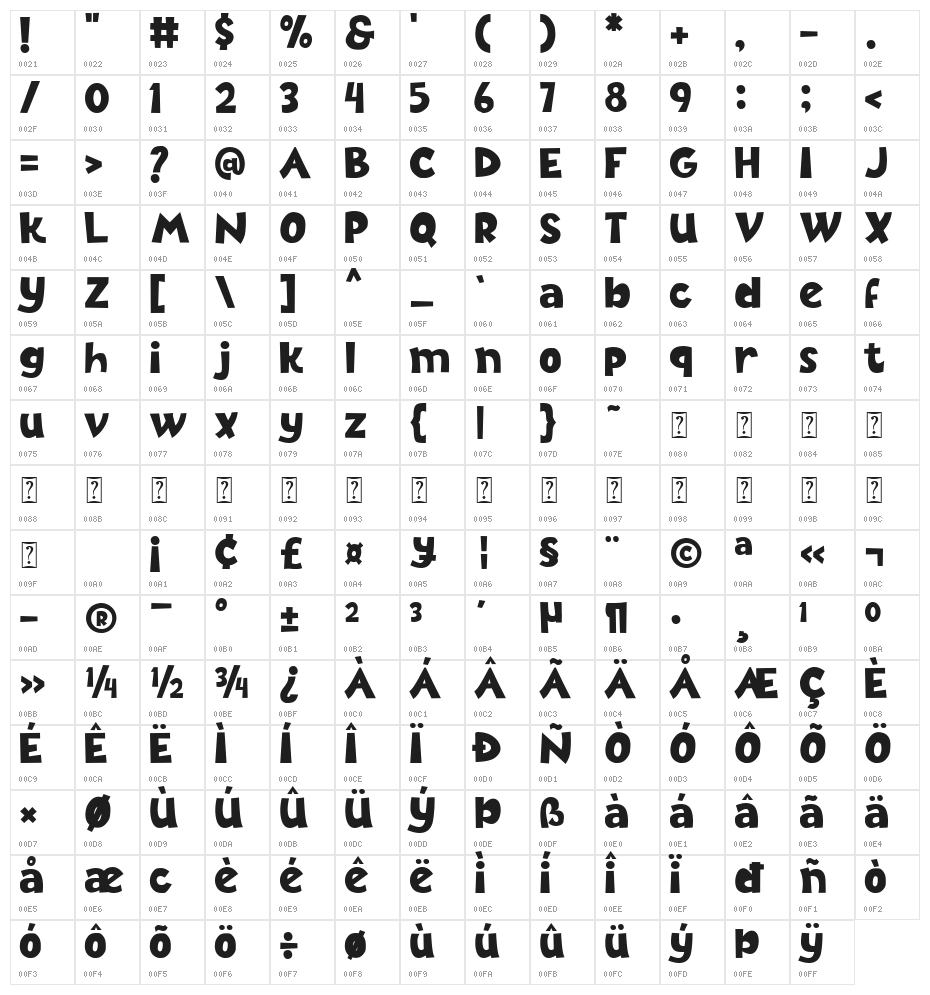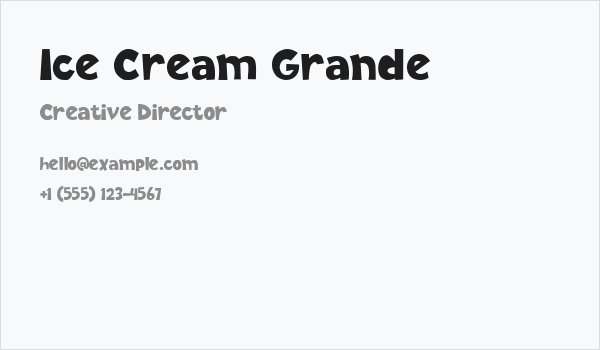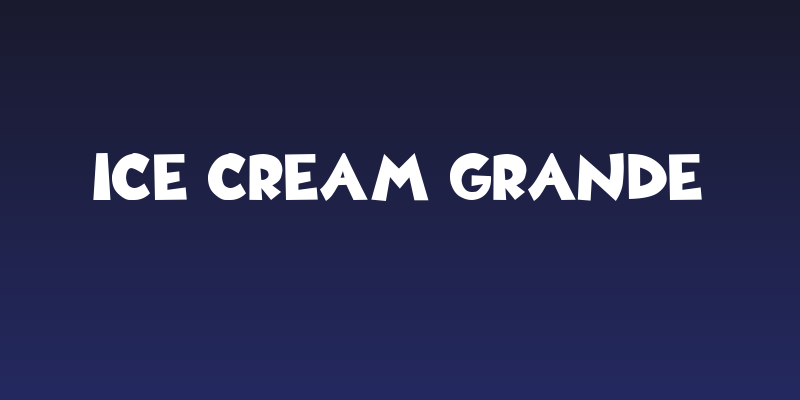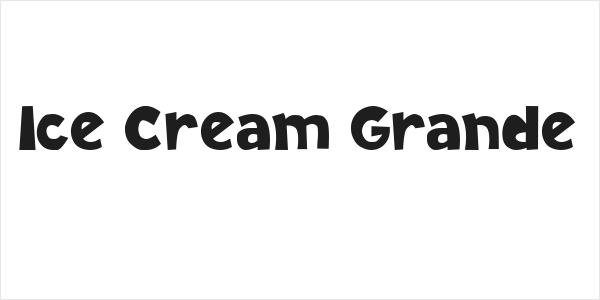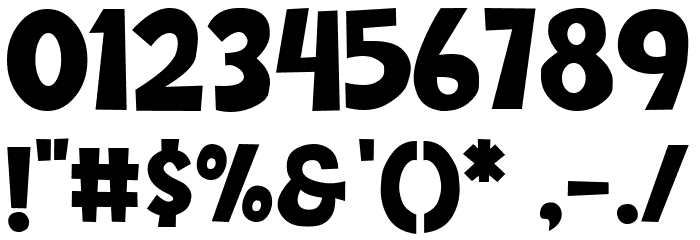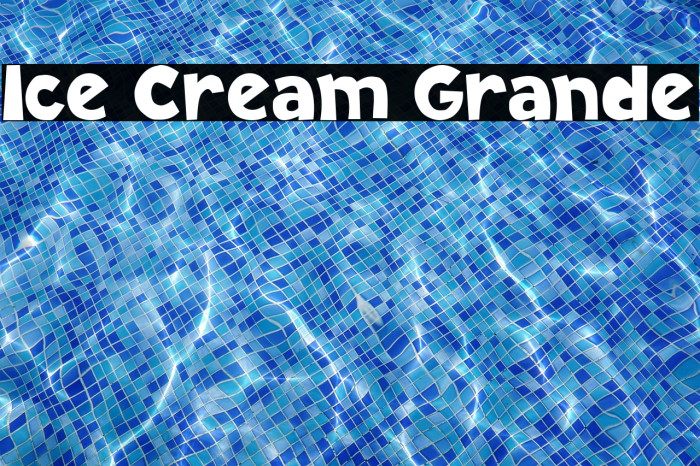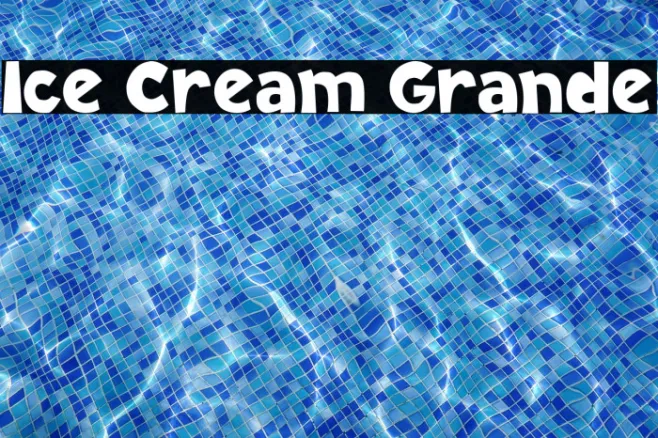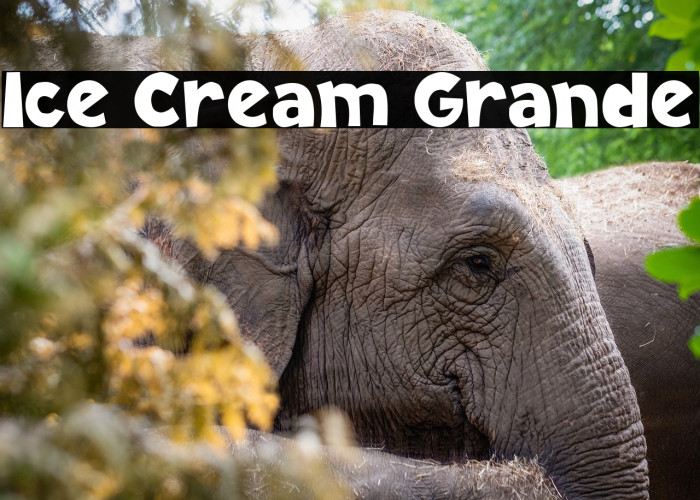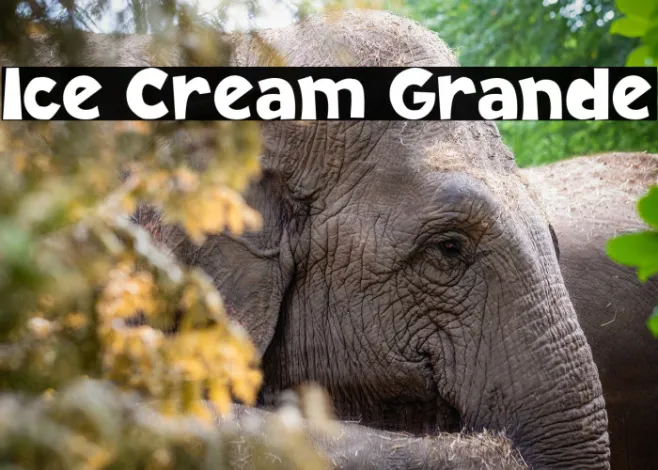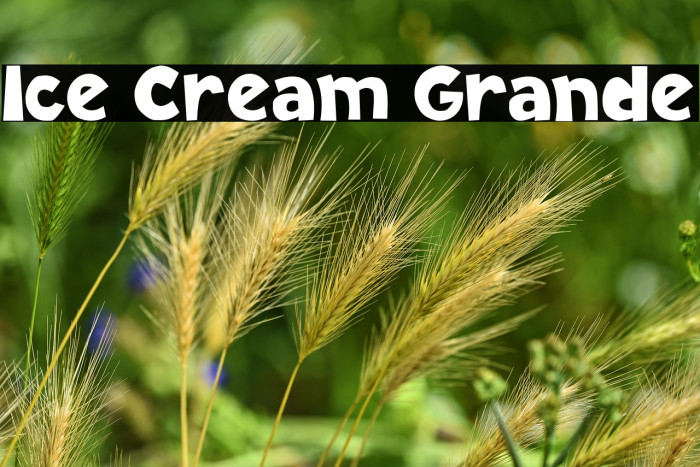
Ice Cream Grande Font
Ice Cream Grande Description
This playful and bold font features a whimsical, cartoon-like style with exaggerated curves and a chunky appearance. The letters are slightly irregular, giving it a hand-drawn feel that adds to its charm. The uppercase and lowercase letters maintain a consistent weight, providing a sense of balance despite their quirky shapes. The numbers and special characters follow the same playful design, making them ideal for creative projects. The font's boldness and unique style make it stand out, perfect for capturing attention in various design contexts.
| Proposed Projects | Ideal for children's books, playful branding, posters, and party invitations. |